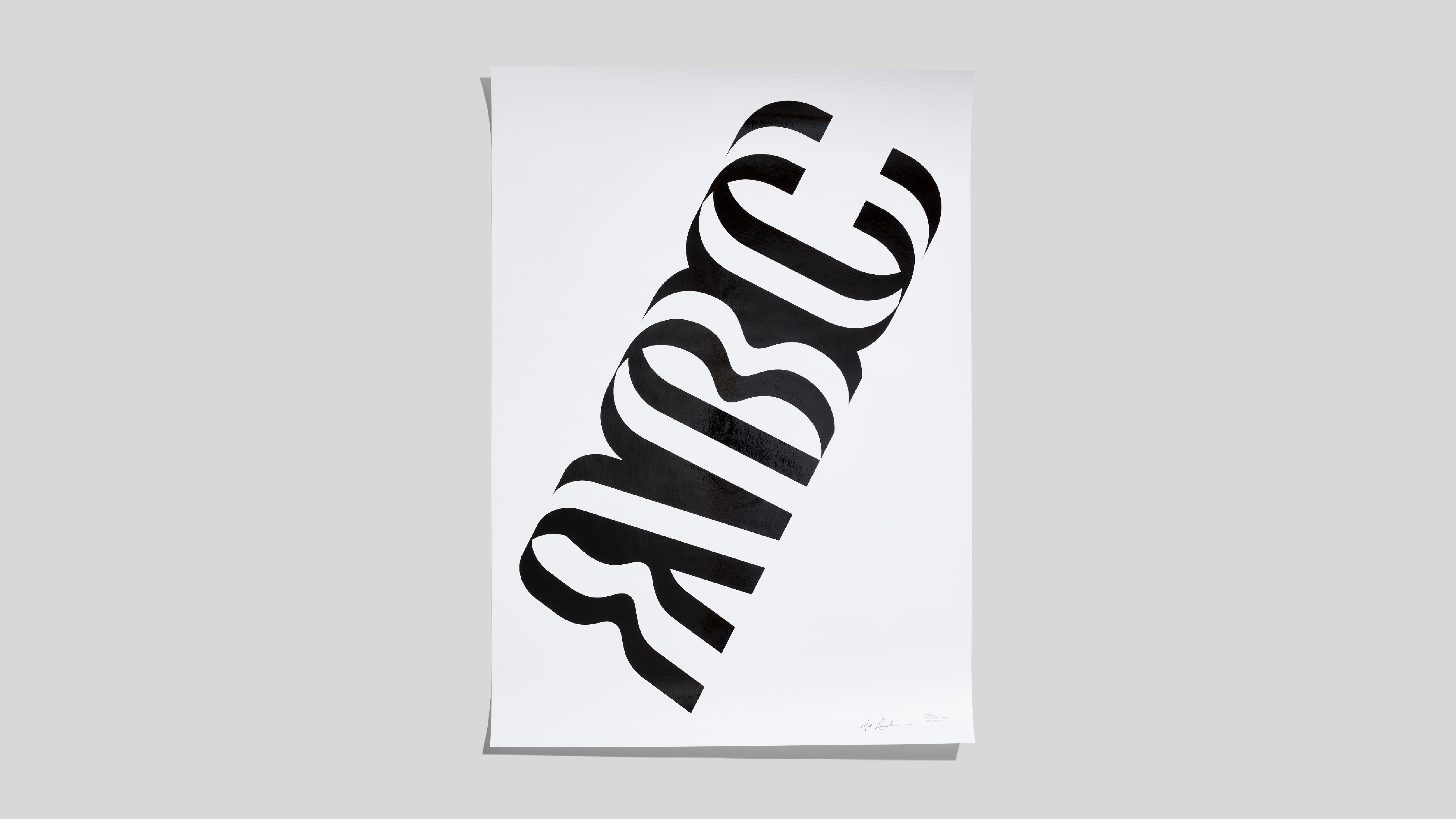
F37 Wyman
It was a privilege to work with Lance Wyman and expand his 1976 letters into a complete font.
F37 Wyman is based on extraordinary lettering work created by celebrated US graphic designer Lance Wyman in 1976. It was commissioned as part of the graphic identity marking 200 years of American Independence. Wyman completed his eye-watering designs in 1970 while working in Mexico, where he’d temporarily relocated after designing his outstanding graphics for the Mexico 68 Olympics. Working with Lance directly, we’ve digitalised his modernist lettering into a working font. Each letter is designed on a grid and uses OpenType to snap each letter into place, creating an even bolder optical illusion. F37 Wyman is perfect for posters, logos or headlines that need to really stand out from the crowd.
The Designer
Over the past 5 decades Lance Wyman has helped to define the field of graphic design.
Born in New Jersey, USA in 1937, Wyman went on to study industrial design at Pratt Institute. In his final year he gravitated towards graphic design before working at General Motors in Detroit and then the George Nelson office in New York. In 1966 he joined the Mexico ’68 Olympics Design Team, where he designed the logotype at the heart of the graphics system. Between 1966–1970 he designed some of the best known logos in Mexico, such as the Metro identity and icon system, World Cup 70, Camino Real, La Moderna, Vanity, Hylsa and Peñoles among others. After returning to New York, Wyman formed a partnership with Bill Cannan (Wyman & Cannan). The office designed identities and wayfinding systems for the National Zoo, the Washington DC Metro, the Jeddah International Airport, and many other cultural and commercial institutions. In 1979, Lance established his own studio, Lance Wyman Ltd. and designed graphic systems for the Minnesota Zoo, the American Museum of Natural History and continued to work on projects in Mexico, most recently the visual identity for Movilidad Integrada (2019) and its different systems of transportation.